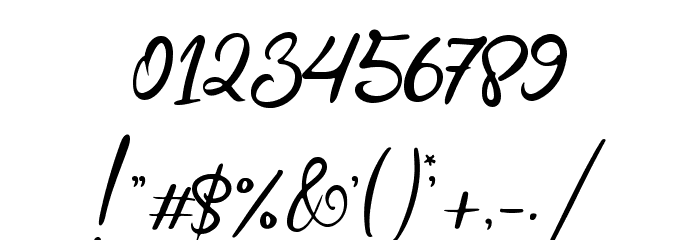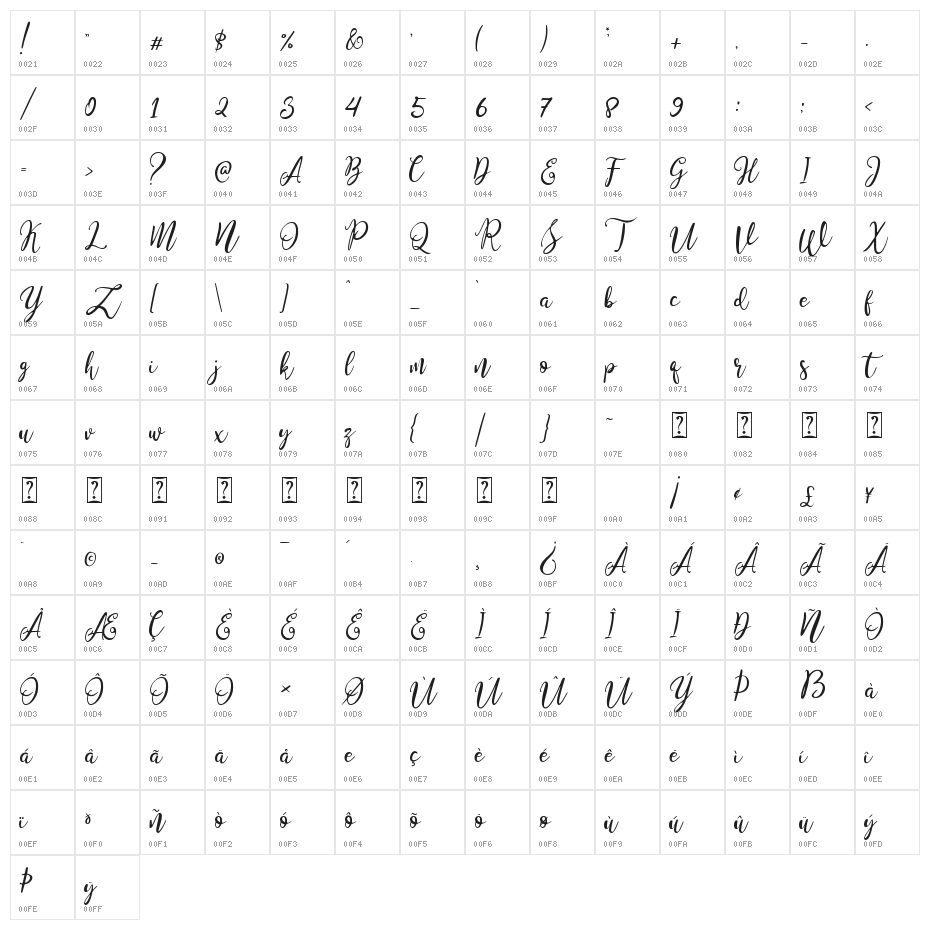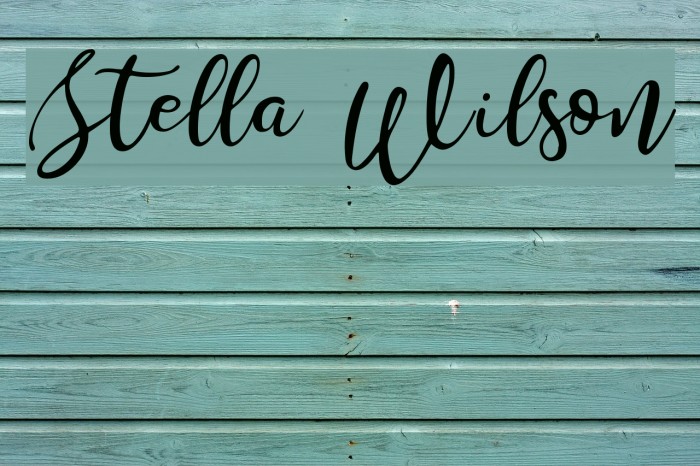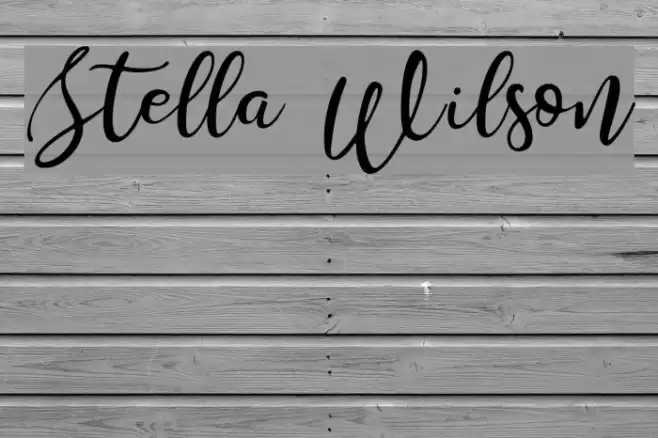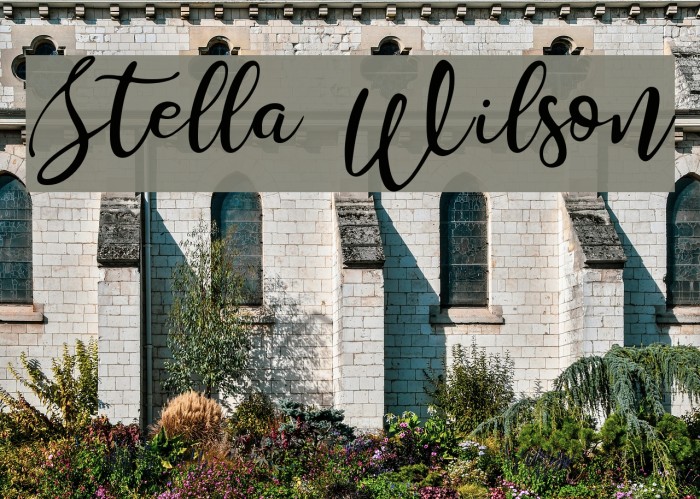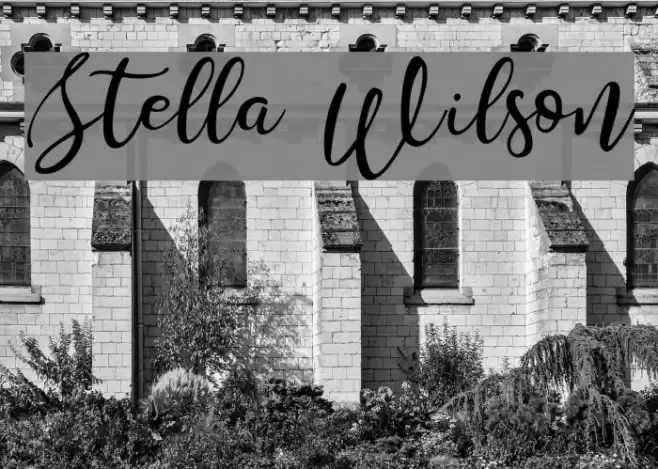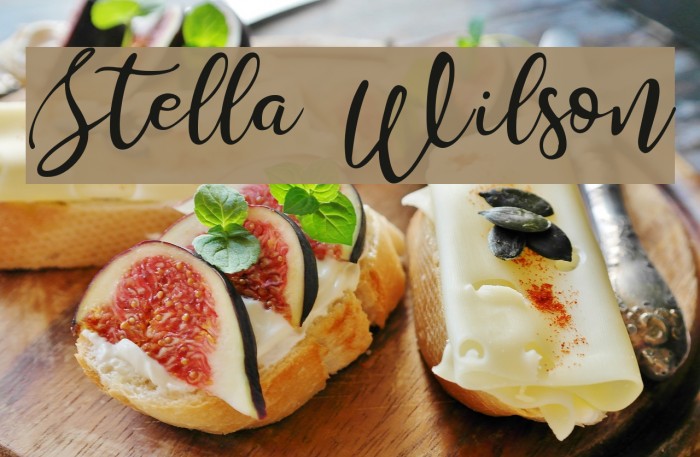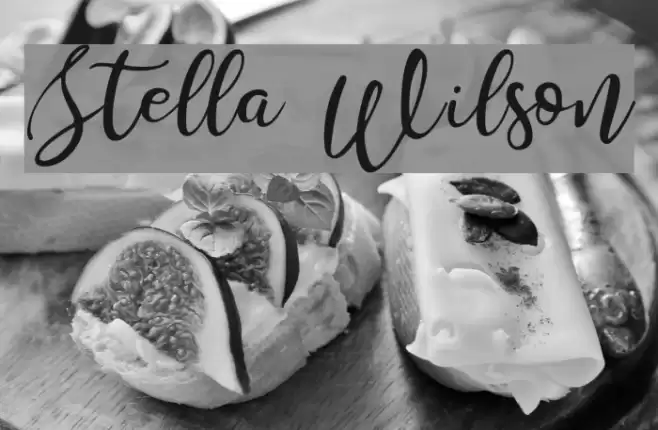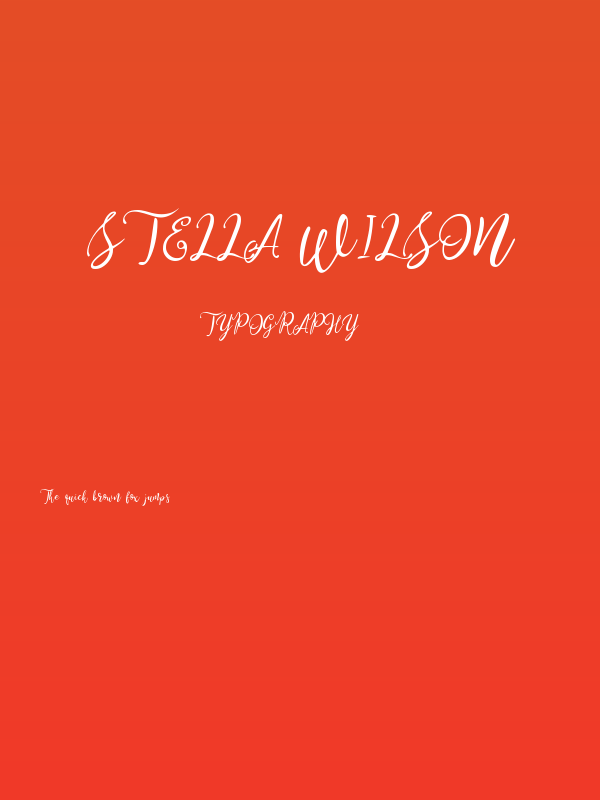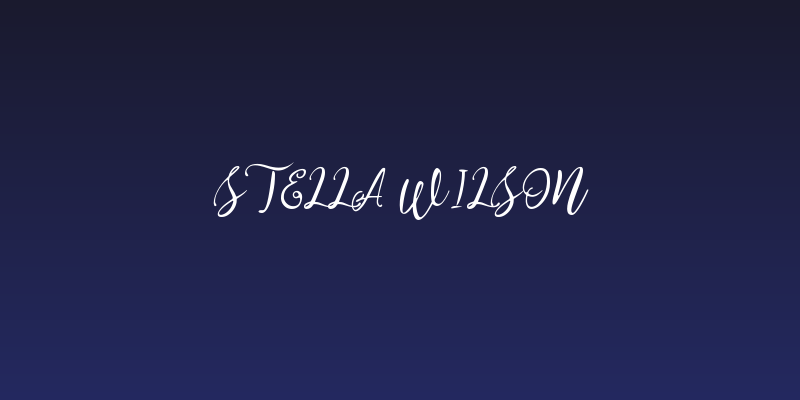
Stella Wilson Font
Stella Wilson Description
This elegant script font features flowing, cursive letterforms that exude a sense of sophistication and charm. The uppercase letters are beautifully crafted with sweeping curves and flourishes, while the lowercase letters maintain a consistent, graceful style. The numerals are well-integrated, maintaining the font's overall fluidity. Special characters are thoughtfully designed, complementing the font's aesthetic. The font's smooth, connected strokes create a harmonious and visually appealing appearance, making it ideal for projects that require a touch of elegance and personality.
| Proposed Projects | Ideal for wedding invitations, greeting cards, branding, and elegant logo designs. |